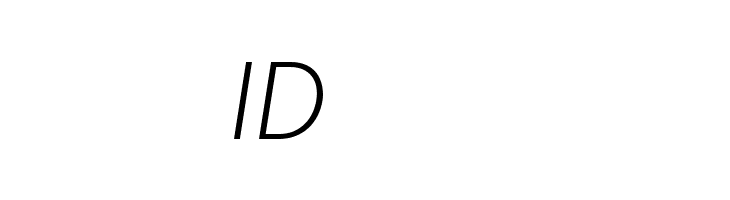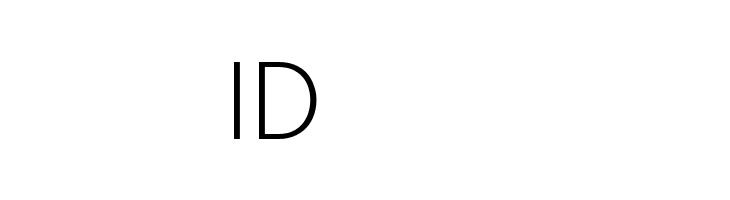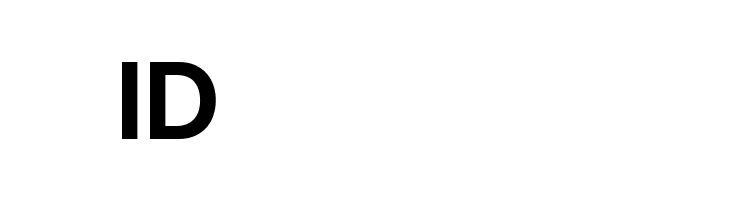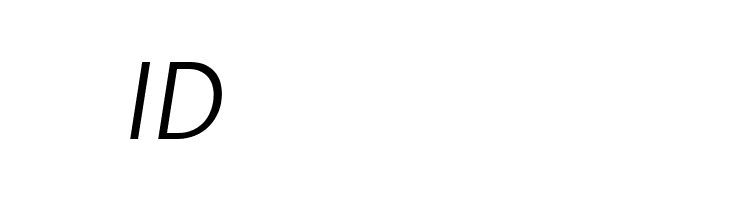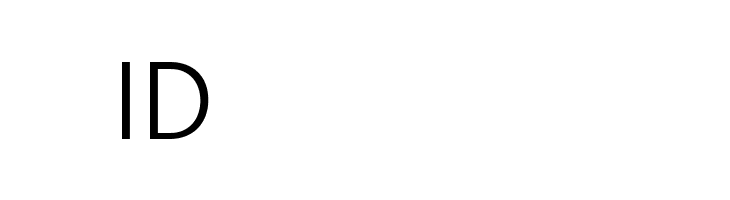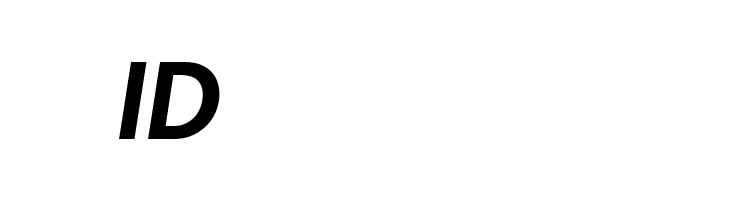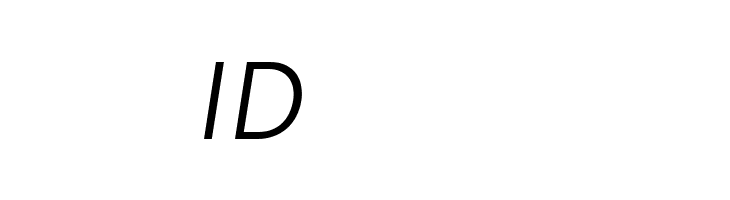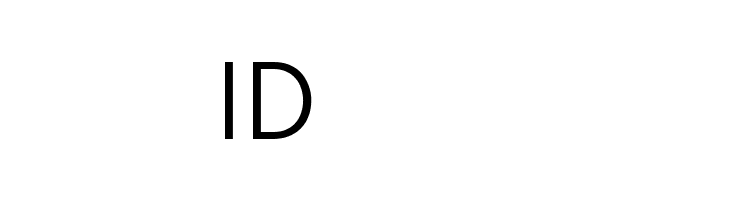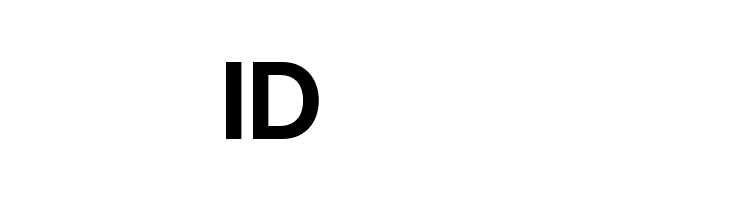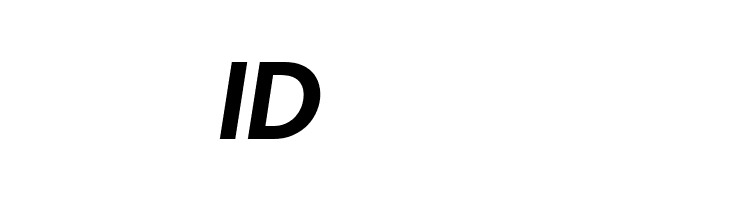
A bold, modern font with clean lines and consistent stroke width.
A bold, geometric typeface with clean lines and a modern aesthetic.
Bold, italicized font with a modern and dynamic style.
A clean, minimalist font with a modern and professional design.
A sleek, extra-light italic sans-serif font with a modern and minimalist design.
A clean, modern sans-serif font with a minimalist design.
A clean, modern sans-serif font with low contrast and rounded edges.
A modern, italic sans-serif font with clean lines and balanced proportions.
A sleek, modern, light italic font with medium contrast and smooth strokes.